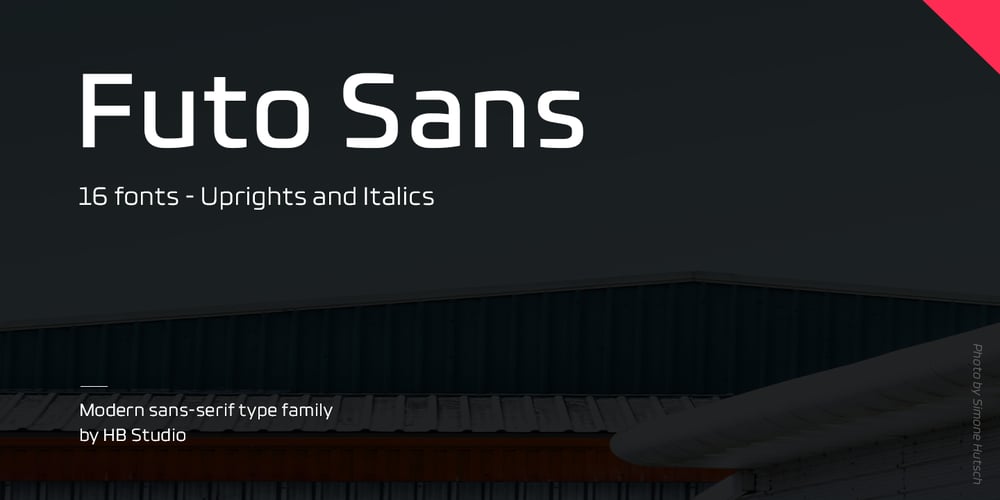
Futo Sans
Futo Sans font
Futo Sans Font Family was designed by Min-jae Oh and published by HB Font. Futo Sans contains 16 styles and family package options. Futo Sans family is a modern & soft sans-serif family has 8 weights upright with matching italics. Its corners and shape give a soft feeling but straight strokes and solid structure make it strong. Each font includes opentype features such as Proportional Figures, Tabular Figures, Numerator, Superscript, Subscript, Case-Sensitive, Denominators, Scientific Inferiors, Ordinals, Ligatures and Fractions.